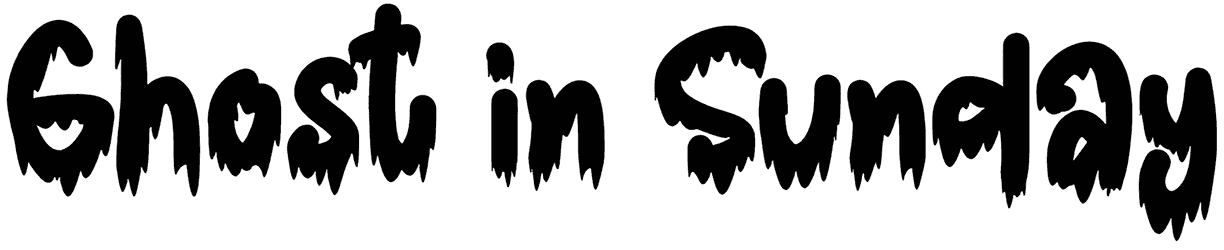
Ghost in Sunday Font
For your supernatural design, choosing a bloody and ghostly face would be an attractive show. As a horror font, Ghost in Sunday, with its decorated hand lettering outward, can chill your viewers even without numeric and most of the punctuation. Give it a try and set this ghost font on various projects, from flyers to apparel, and be unique.